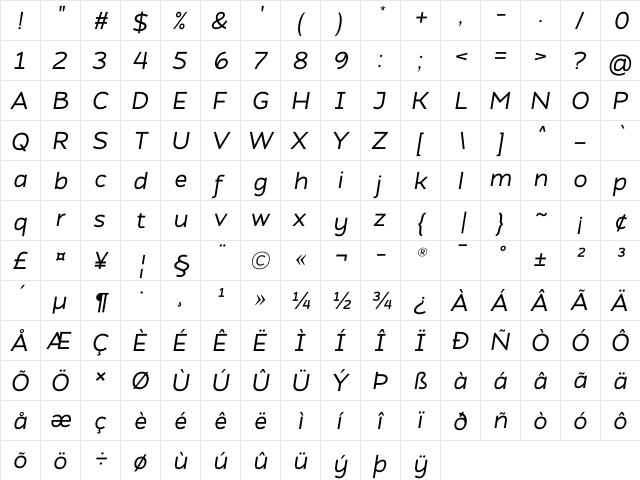
Atozimple Medium Italic
Design Context for Atozimple Medium Typeface
Atozimple Medium offers clean, dependable letterforms without strong stylistic allegiance, making it a practical choice for designers who need flexibility. The slanted form adds forward momentum and visual energy.
Pro Tip: Try Atozimple Medium for annotation and caption copy alongside an upright companion — the contrast in angle creates a dynamic but ordered typographic system.